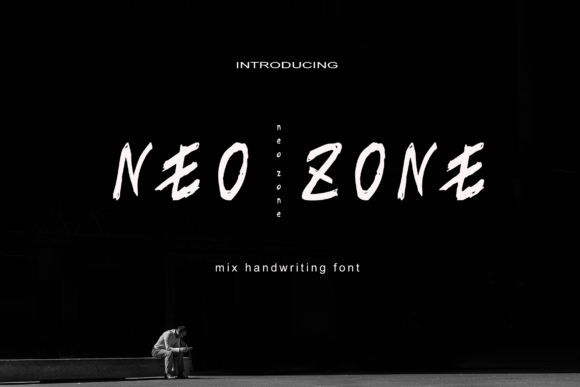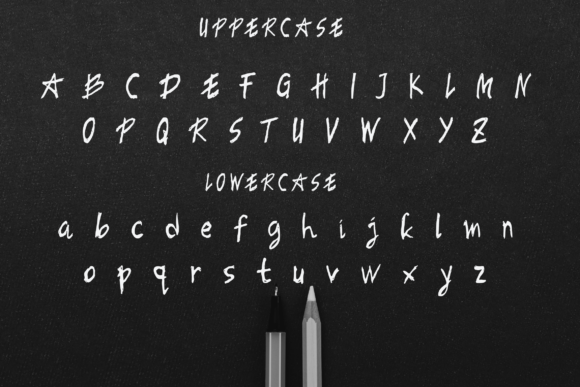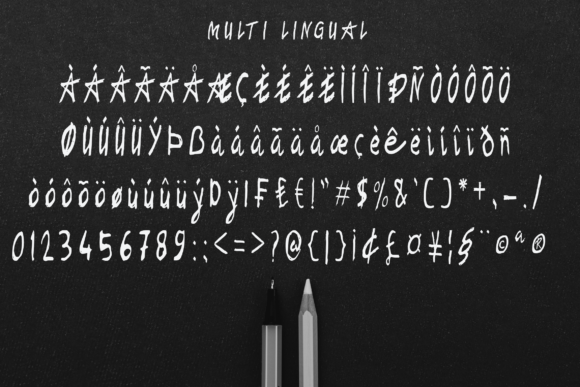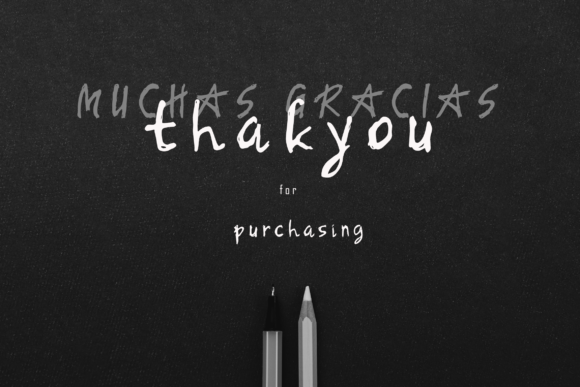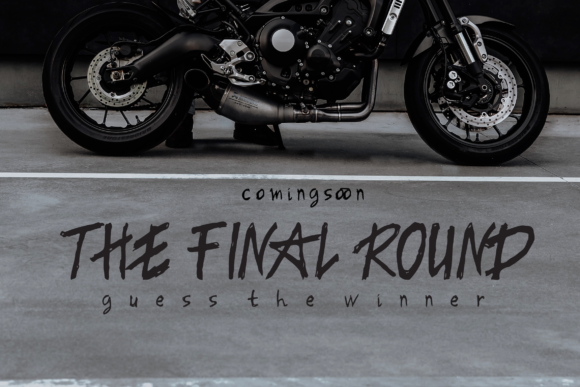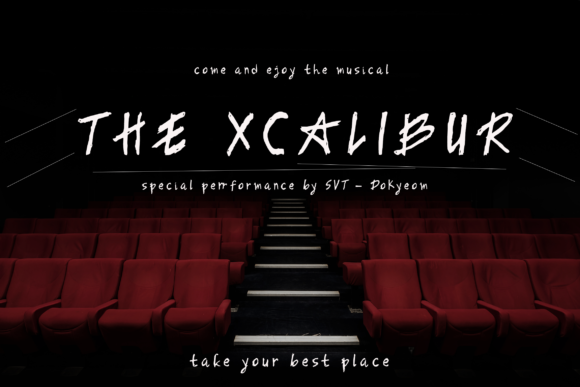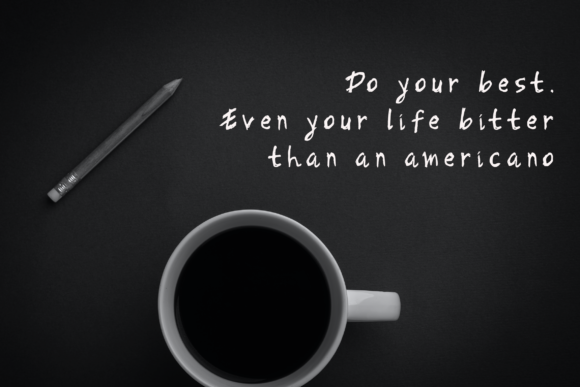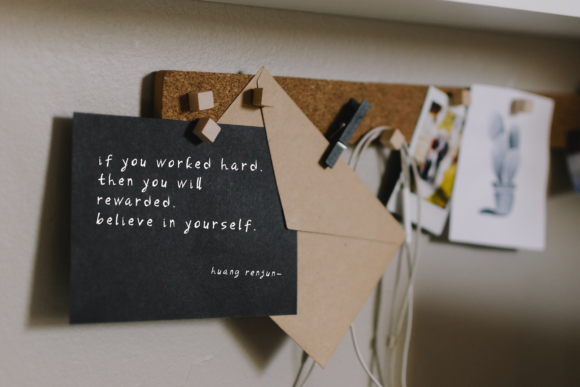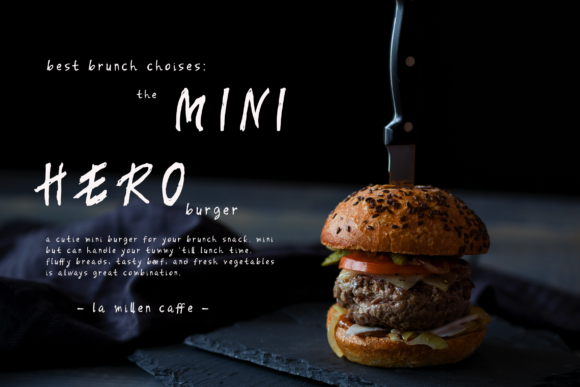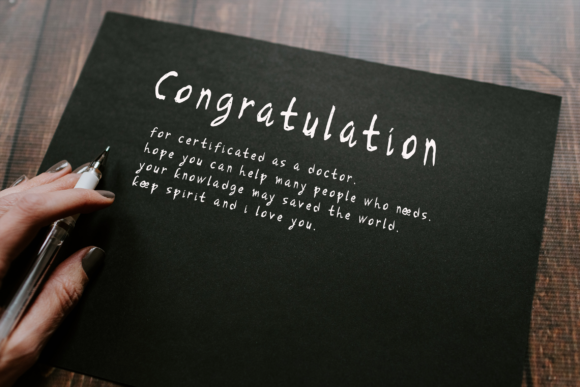
Neo Zone Font
About Neo Zone Font
Neo Zone is a modern and clean display font. Its versatility and neat vibe will brighten up each of your designs. Have fun with this beautiful font and explore its endless variations.